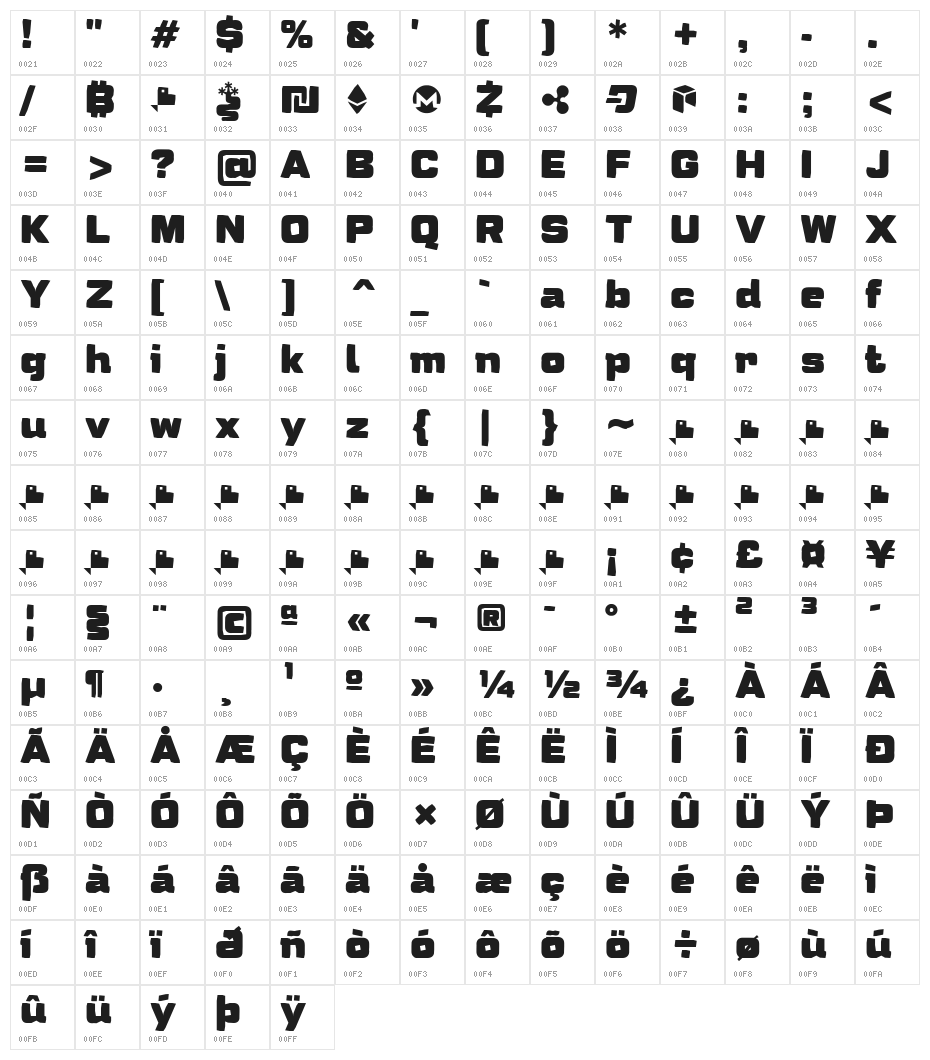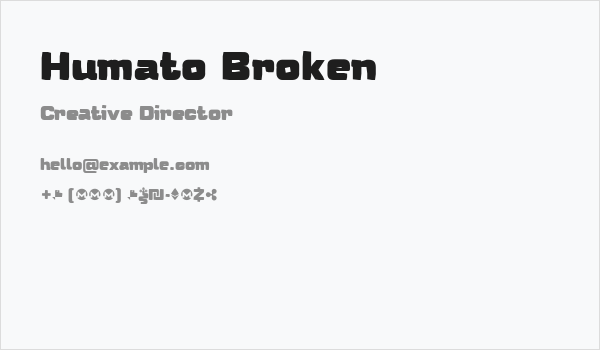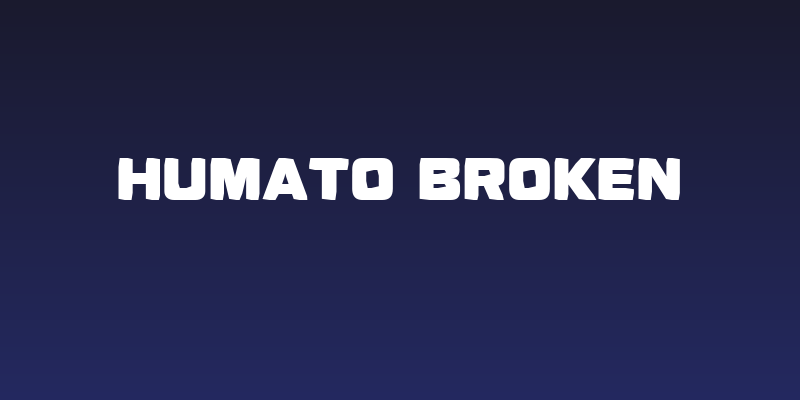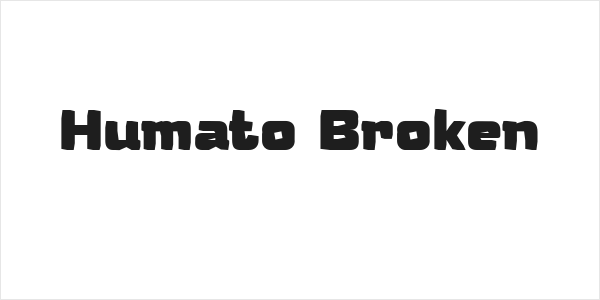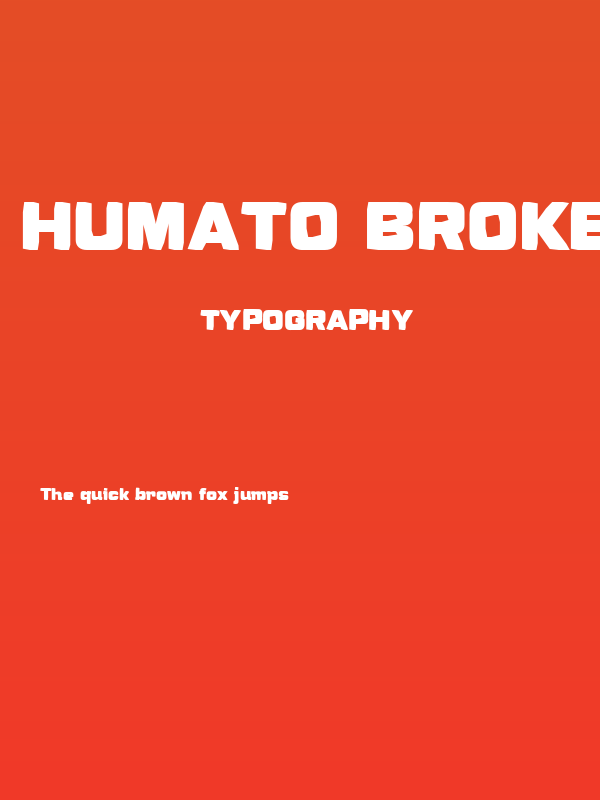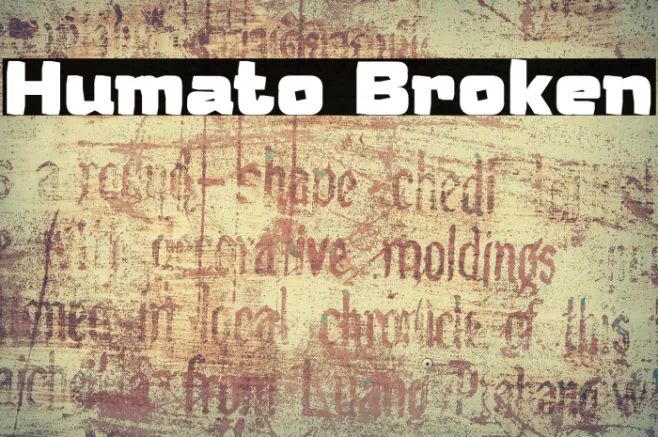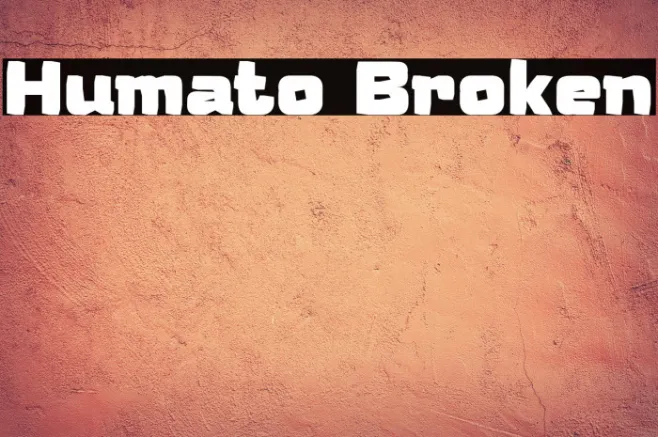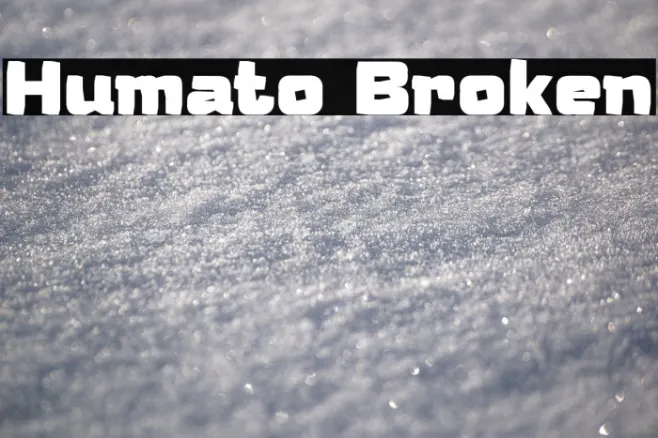
Humato Broken Font
Humato Broken Description
This font features a bold and robust design with a distinctly modern and geometric style. The characters are blocky and angular, giving them a strong presence on the page. The uppercase and lowercase letters maintain a consistent weight, contributing to a cohesive look. The font includes a variety of special characters and symbols, each designed with the same bold, geometric aesthetic. The overall appearance is striking, making it ideal for projects that require a strong visual impact. The font's unique style is both contemporary and versatile, suitable for a range of creative applications.
| Proposed Projects | Ideal for branding, posters, headlines, and any project needing a bold, impactful typeface. |